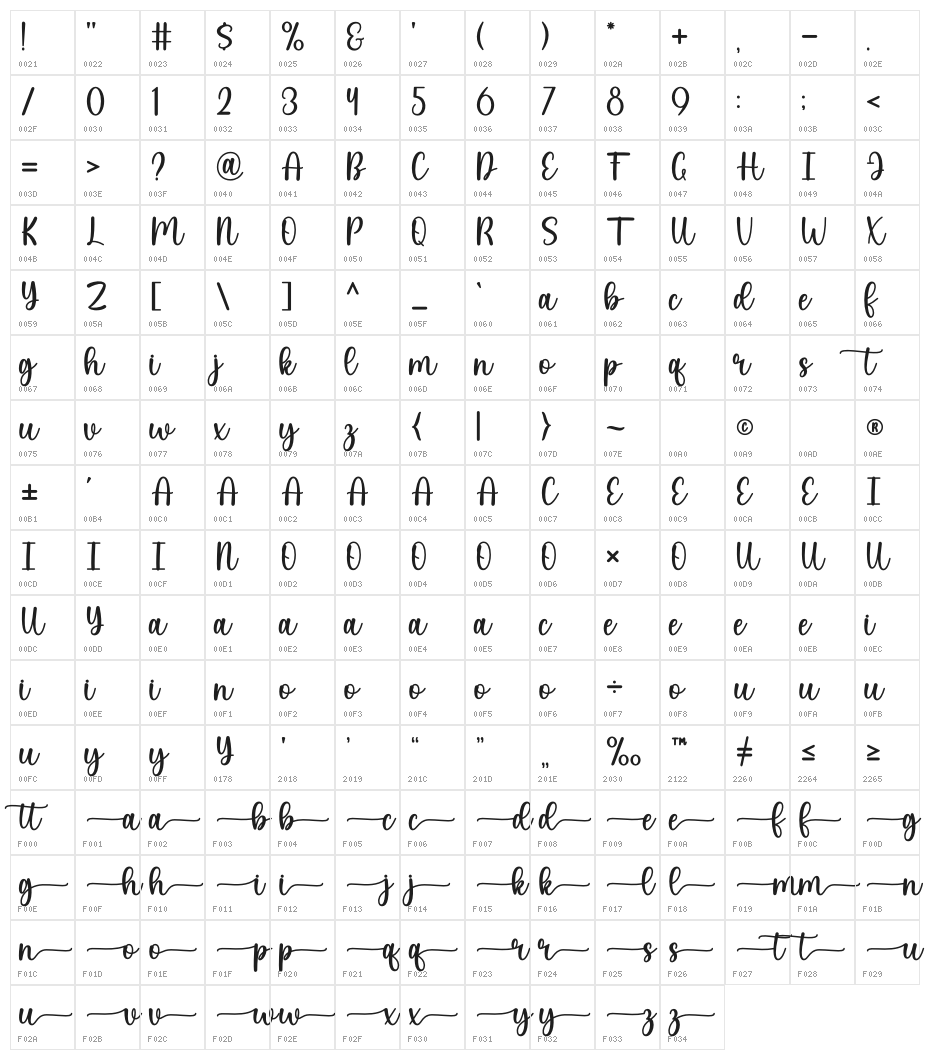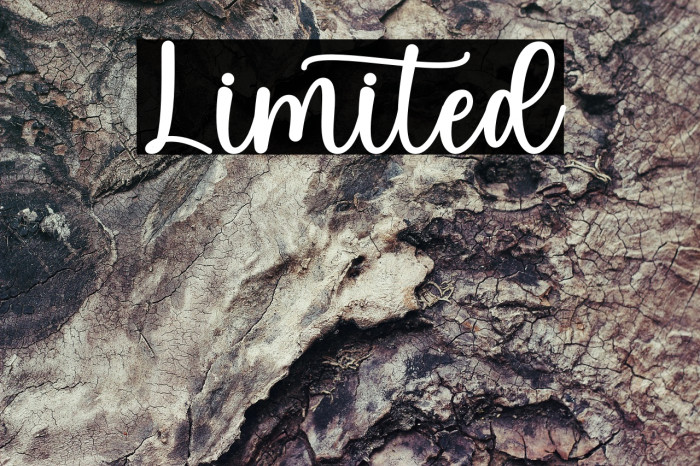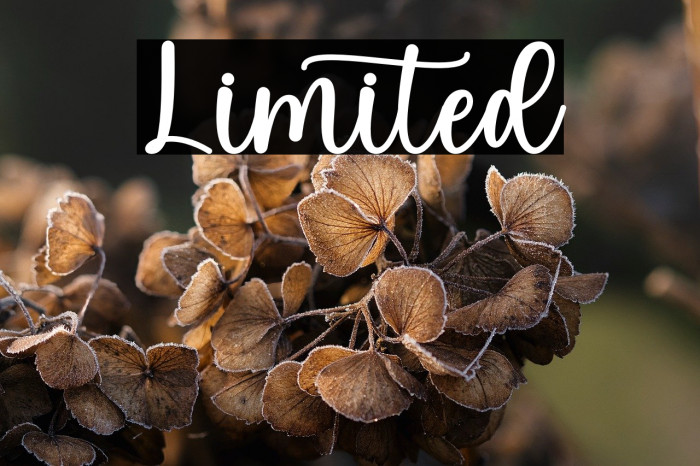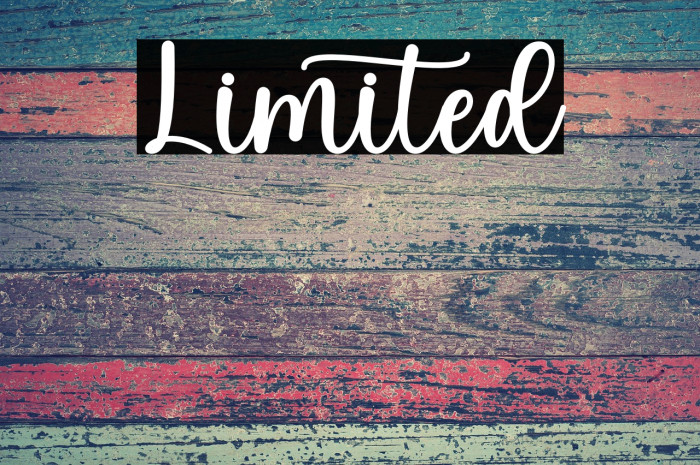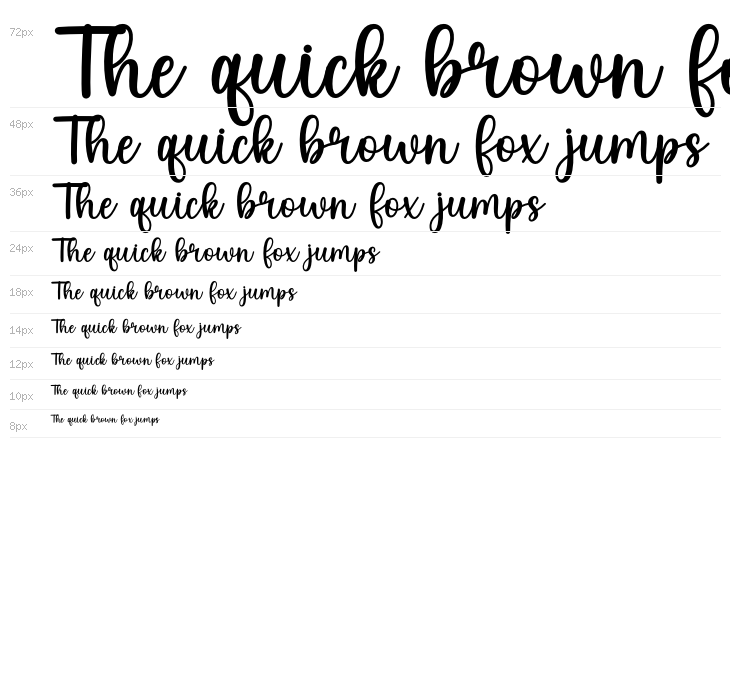
Limited Font
Limited Description
This font features a playful and flowing script style with a handwritten appearance. The uppercase letters are bold and slightly slanted, giving a dynamic and lively feel. The lowercase letters are more connected, enhancing the cursive look. Numbers and special characters maintain the same playful style, ensuring consistency across all elements. The strokes are thick, providing a strong presence, while the rounded edges add a friendly touch. This font is ideal for projects that require a personal and approachable aesthetic.
| Use Case | Logos, Headlines, Invitations |
| Proposed Projects | Ideal for greeting cards, invitations, branding, and social media graphics. |